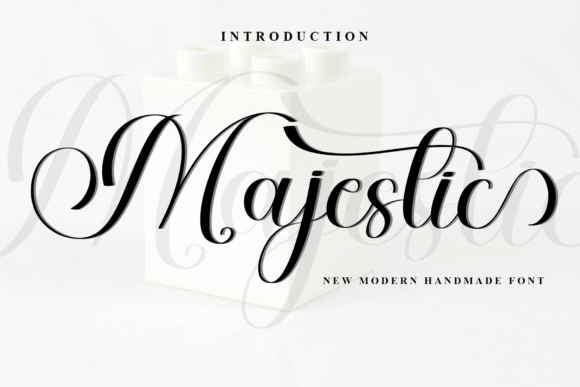
Majestic Font: Elevate Your Designs with a Unique and Versatile Typeface
In the world of typography, a font can make or break a design project. A well-chosen font can elevate your work, making it more engaging, readable, and memorable. One such font that has gained popularity among designers and creative professionals is the Majestic Font. Designed with a soft, unique touch, Majestic is a beautiful and eye-catching typeface that can add a special character to your designs.
What is Majestic Font?
Majestic Font is a distinctive typeface designed with a soft, unique touch. Its strokes are carefully crafted to give it a special character, making it meaningful and versatile for future use. The font features various characters, which makes it perfect for design projects, crafts, and other creative works.
Key Features of Majestic Font
- Unique and Eye-catching Design: Majestic Font boasts a distinctive design that sets it apart from other fonts. Its soft, rounded strokes give it a friendly and approachable feel.
- Versatile and Meaningful: The font’s special character makes it suitable for a wide range of design projects, from creative works to crafts.
- Ideal for a Wide Range of Products: The font’s natural style makes it perfect for use on a variety of products, from digital media to print materials.
Design Applications of Majestic Font
Majestic Font is perfect for a wide range of design projects, including:
- Graphic Design: Use Majestic Font to create stunning graphic designs, such as logos, brochures, and posters.
- Digital Media: The font is ideal for digital media, including social media graphics, website headers, and email newsletters.
- Crafts and DIY Projects: Majestic Font can add a personal touch to your crafts and DIY projects, such as handmade cards and gift tags.
- Advertising and Marketing Materials: The font’s unique design makes it perfect for use on advertising and marketing materials, such as billboards and flyers.
Benefits of Using Majestic Font
Using Majestic Font in your design projects can have several benefits, including:
- Enhanced Visual Appeal: The font’s unique design can enhance the visual appeal of your designs, making them more engaging and memorable.
- Increased Readability: Majestic Font is designed to be highly readable, making it perfect for use on digital media and print materials.
- Versatility: The font’s versatility makes it suitable for use on a wide range of products and design projects.
- Time-saving: With Majestic Font, you can save time and effort in selecting a font that meets your design requirements.
Tips and Tricks for Using Majestic Font
Here are some tips and tricks for using Majestic Font in your design projects:
- Experiment with Font Sizes: Experiment with different font sizes to find the perfect size for your design project.
- Pair with Other Fonts: Pair Majestic Font with other fonts to create a unique and visually appealing design.
- Use on Different Backgrounds: Use Majestic Font on different backgrounds to create a contrasting effect.
- Add Effects and Styles: Add effects and styles to Majestic Font to give it a personalized touch.
In conclusion, Majestic Font is a beautiful and eye-catching typeface that can elevate your design projects. Its unique design, versatility, and compatibility with various platforms make it perfect for use on a wide range of products and design projects. With Majestic Font, you can enhance your designs, making them more engaging, readable, and memorable.